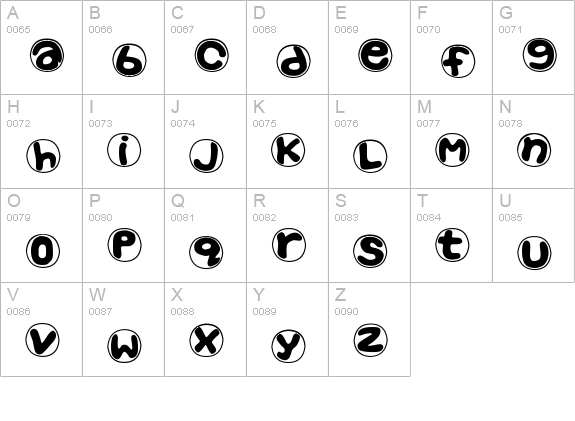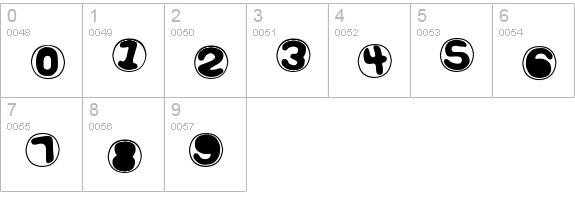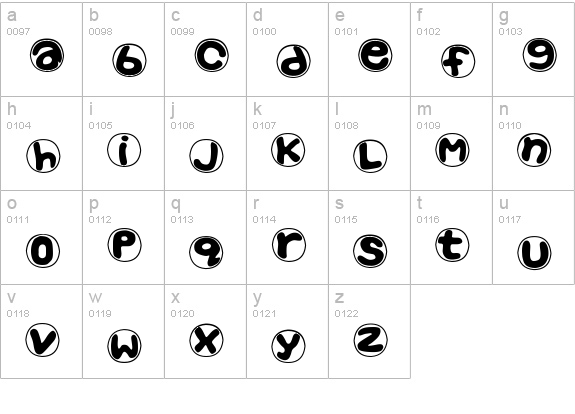
Pop Up Font Details
Introducing Pop Up font, a vibrant and engaging typeface that is sure to make your designs pop! With its playful and modern look, Pop Up font is perfect for a variety of projects, from posters to social media graphics. This fun and energetic font will bring a fresh and contemporary feel to your work. And the best part? Pop Up font is completely free to download at FontsMarket.com! Whether you're a designer looking to add some flair to your creations or a hobbyist wanting to experiment with a new font, Pop Up is the perfect choice. Don't miss out on this fantastic opportunity to enhance your designs with this eye-catching typeface. Download Pop Up font today and let your creativity shine!